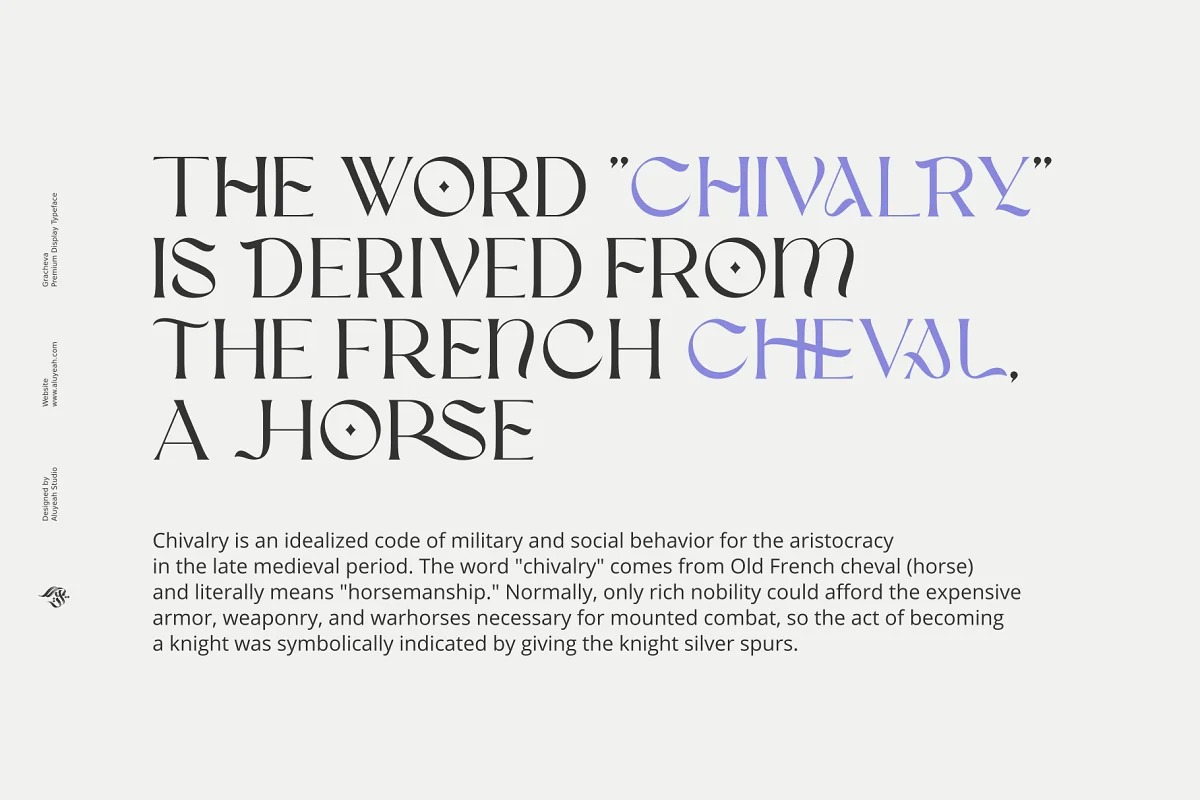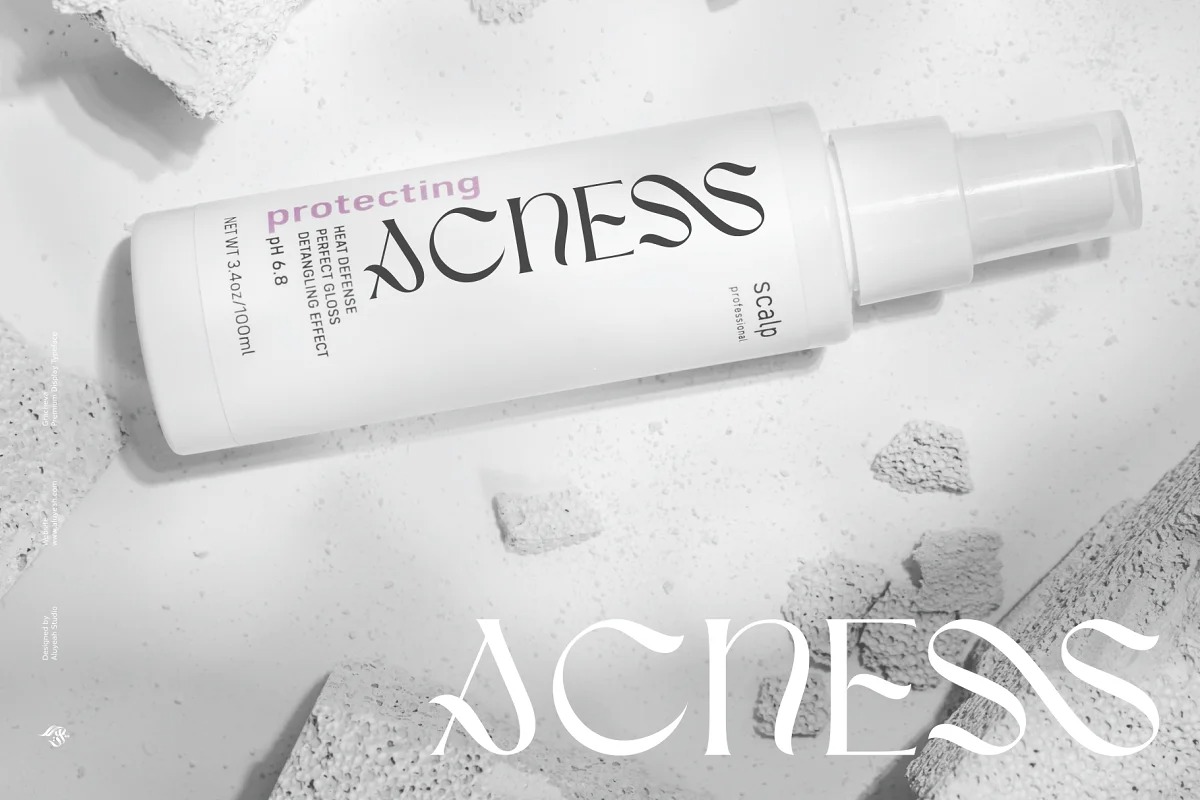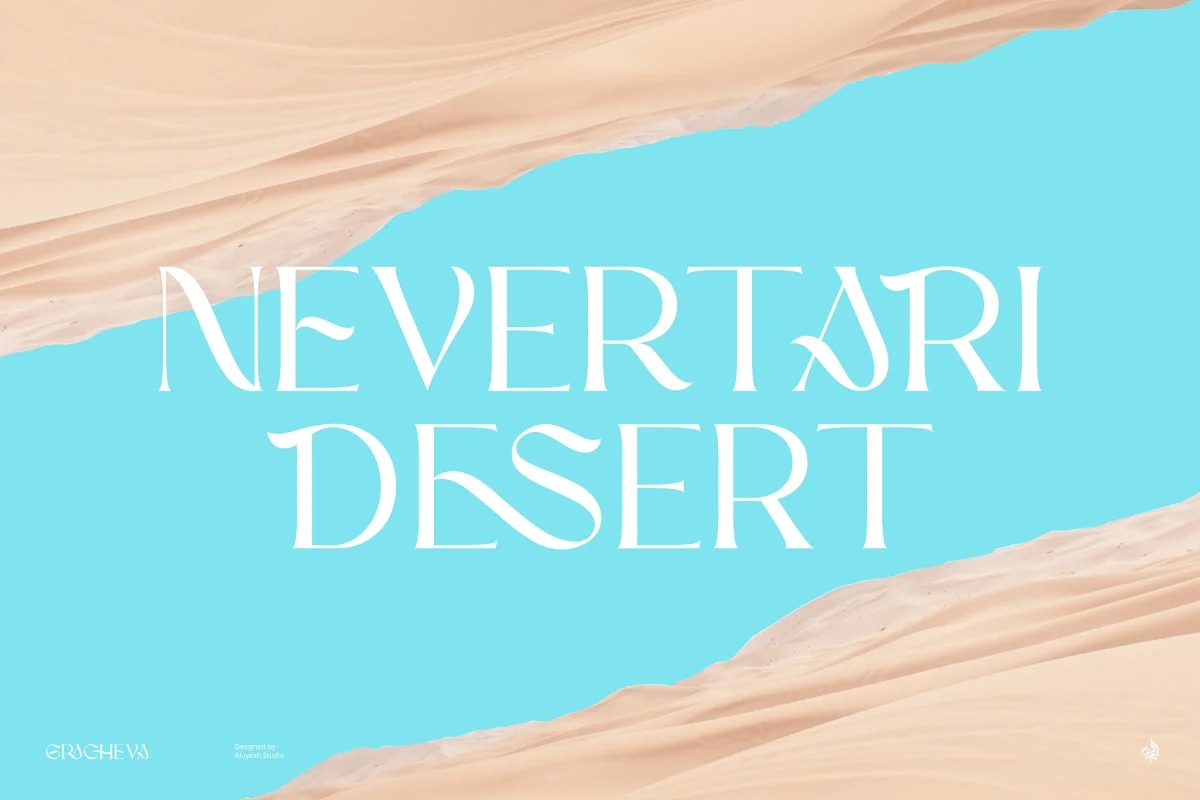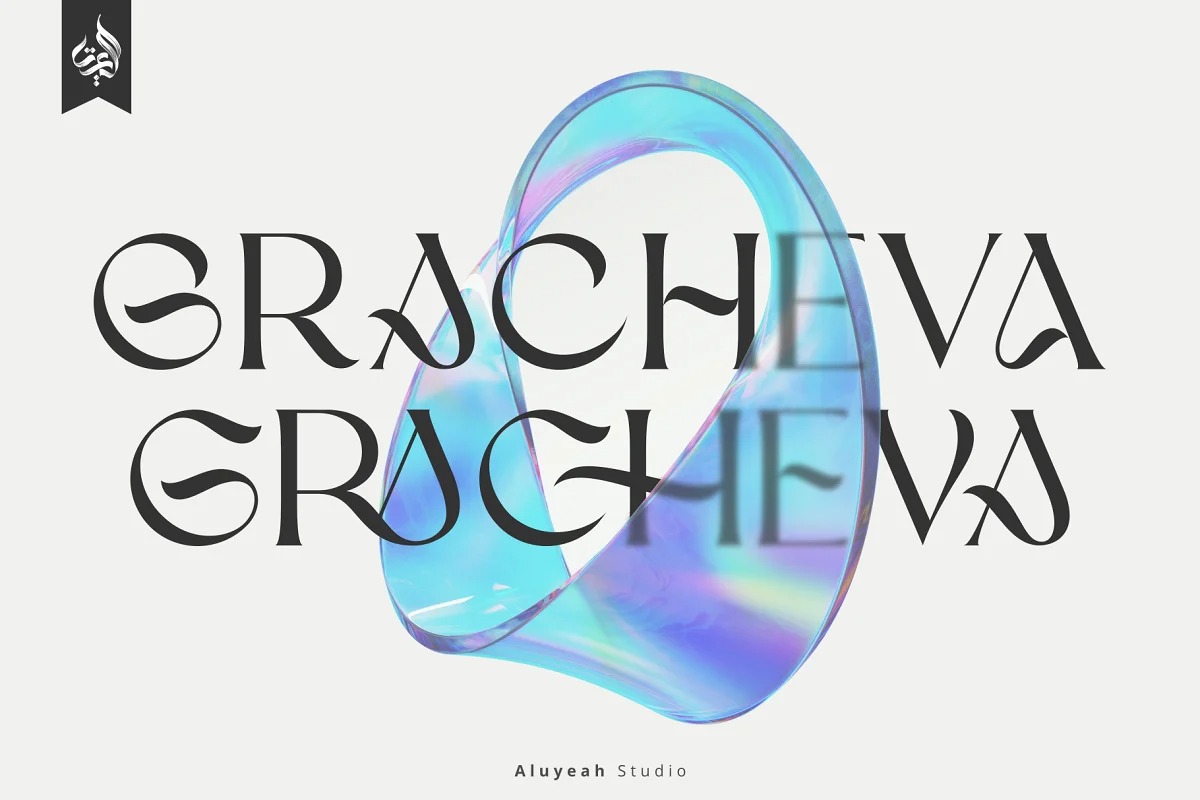
Gracheva Serif Font
This font is a collection of modern, feminine, beautiful and classy characters, giving you a unique look for any branding or design need. Made from font designer named Aluyeah Studio. Gracevha is a premium display typeface that conveys a charming elegance but powerful like a graceful wild horse that can be applied to many areas of design. Coming with 130+ stunning and super easy to use alternates and ligatures.